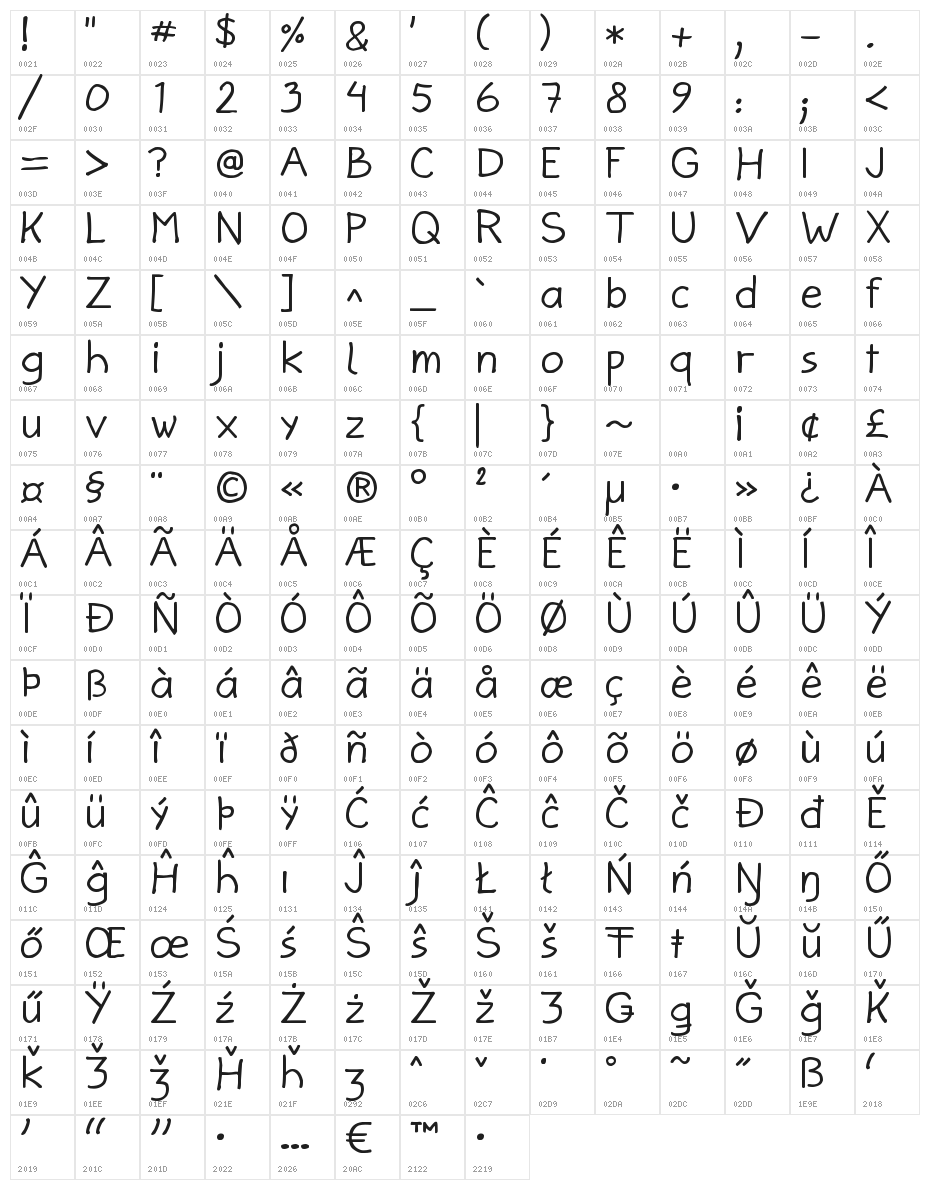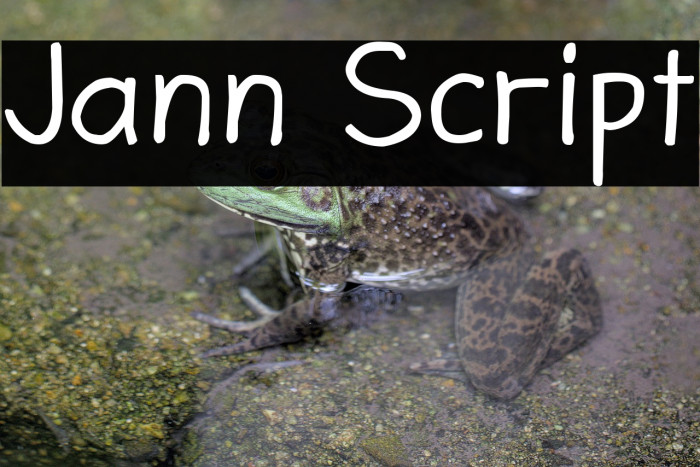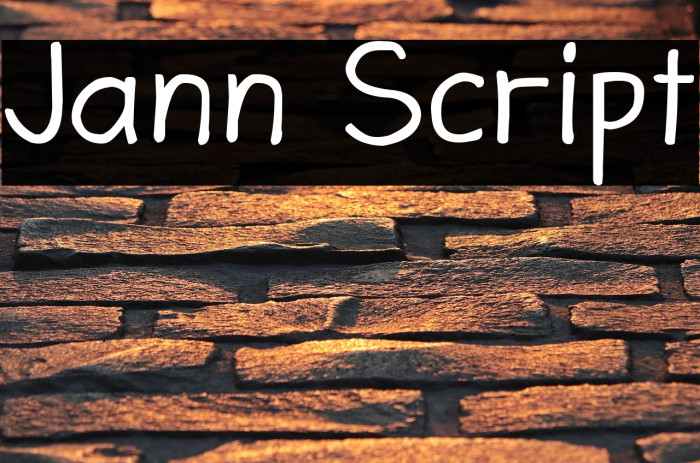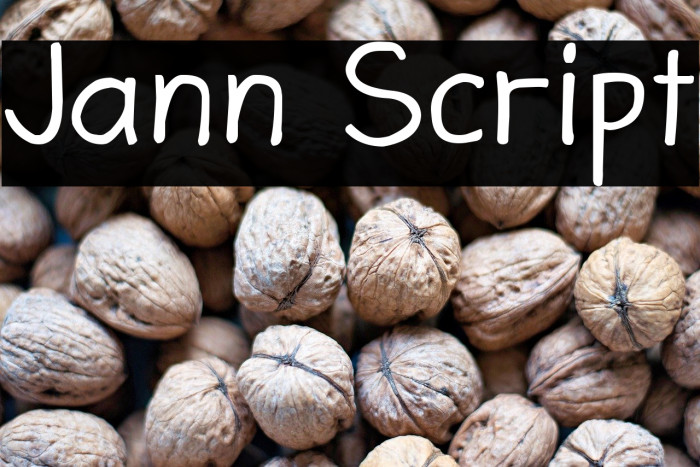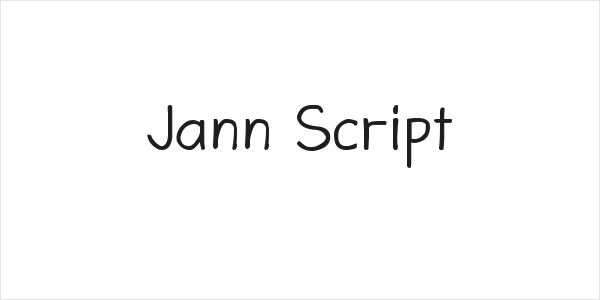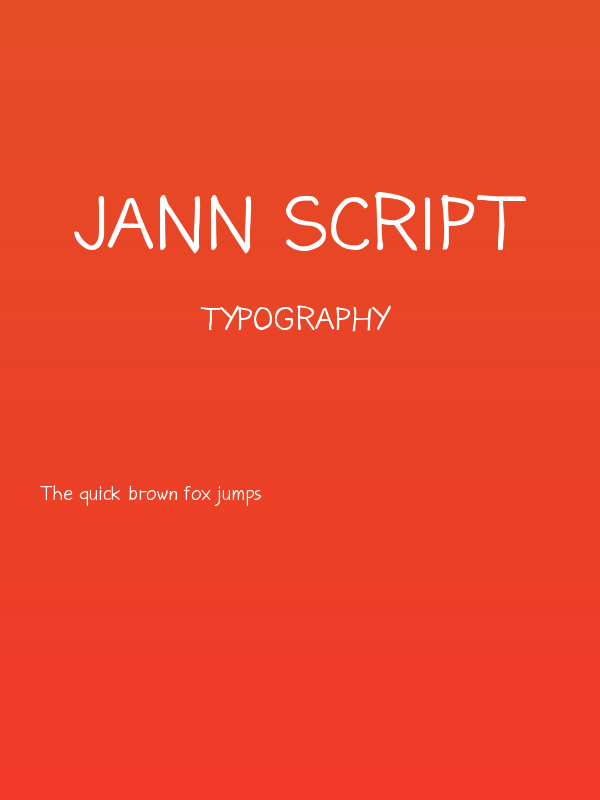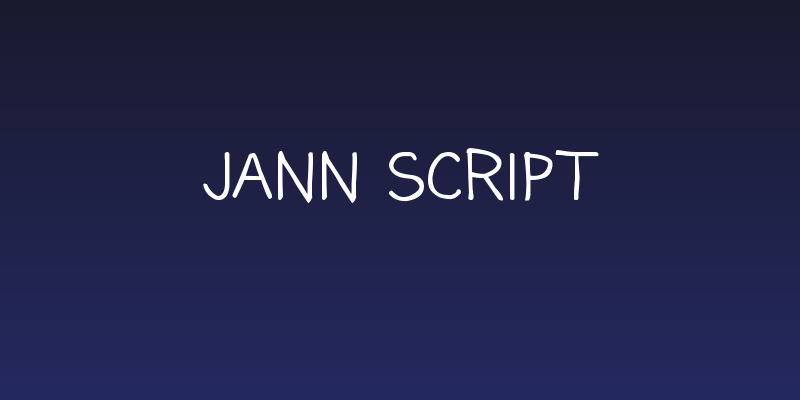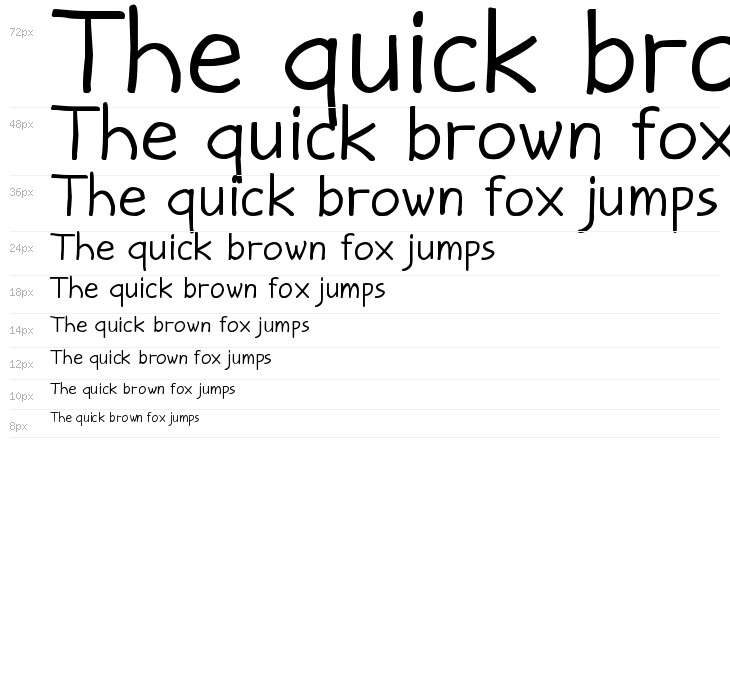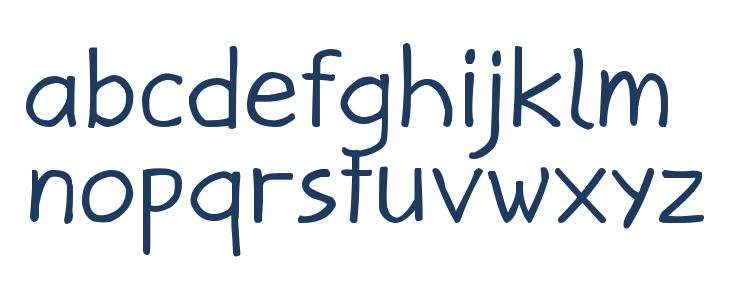
Jann Script Font
Jann Script Description
This font exhibits a playful and casual handwritten style, characterized by its smooth, rounded edges and slightly irregular letterforms. The uppercase and lowercase letters maintain a consistent flow, with a natural, organic appearance that mimics the fluidity of handwriting. The numerals and special characters complement the alphabet with similar stylistic features, ensuring a cohesive look across all characters. The font's informal and friendly demeanor makes it suitable for projects that require a personal touch or a relaxed vibe.
| Overall Style | Casual |
| Use Case | Headlines, Informal text, Personal projects |
| Proposed Projects | Ideal for greeting cards, children's books, personal blogs, and informal branding projects. |